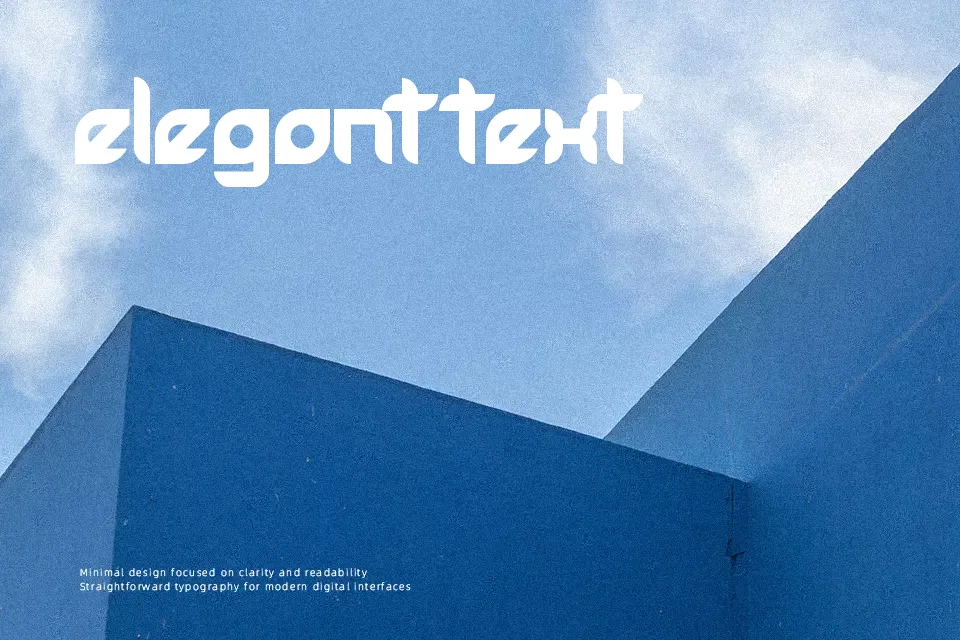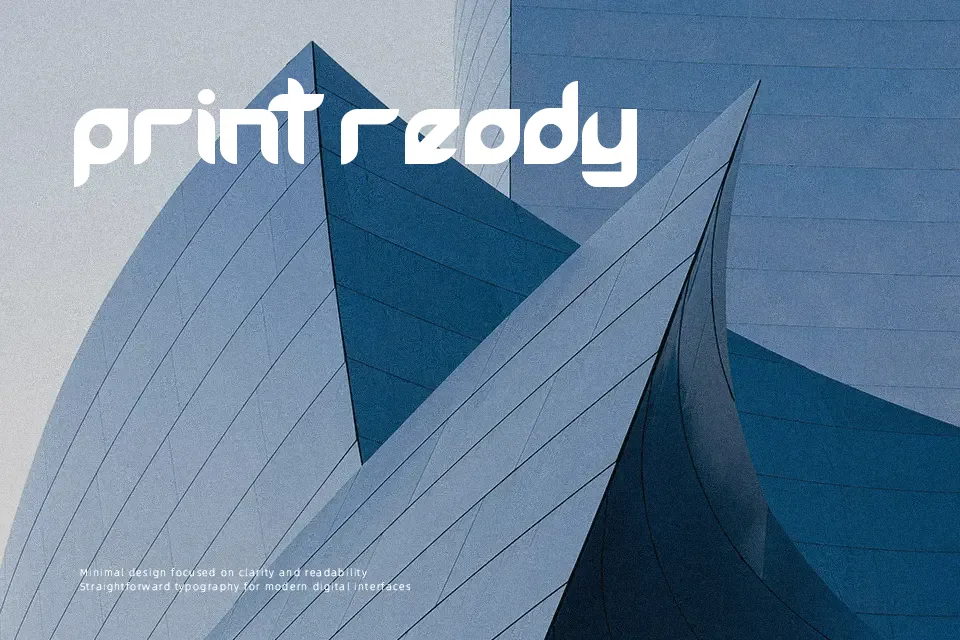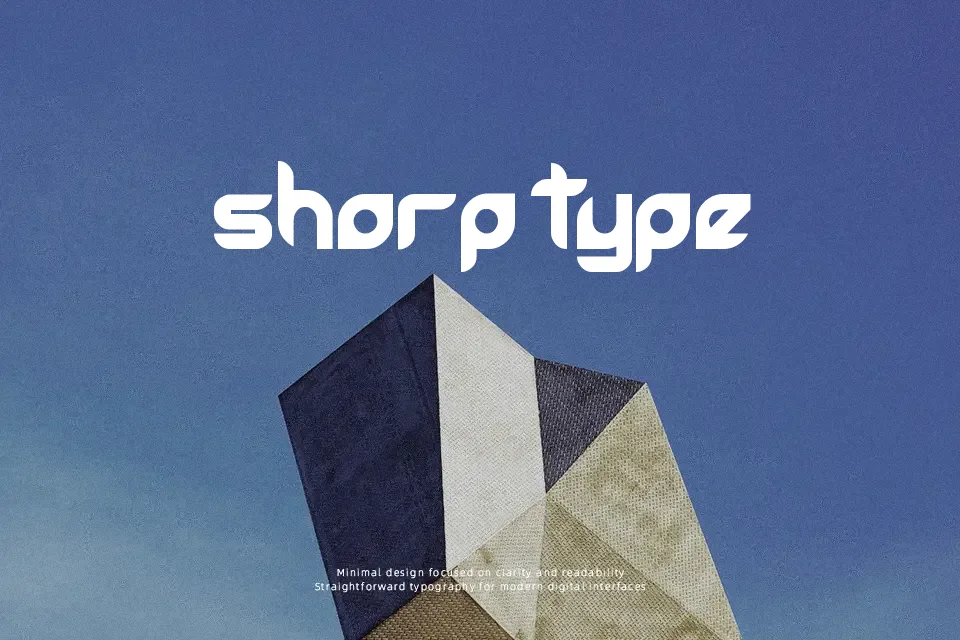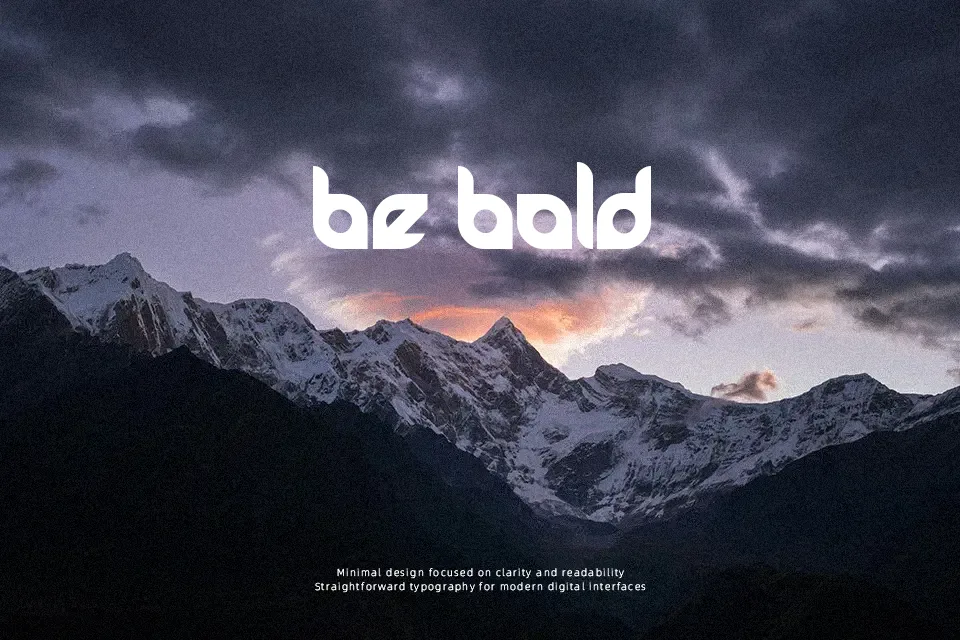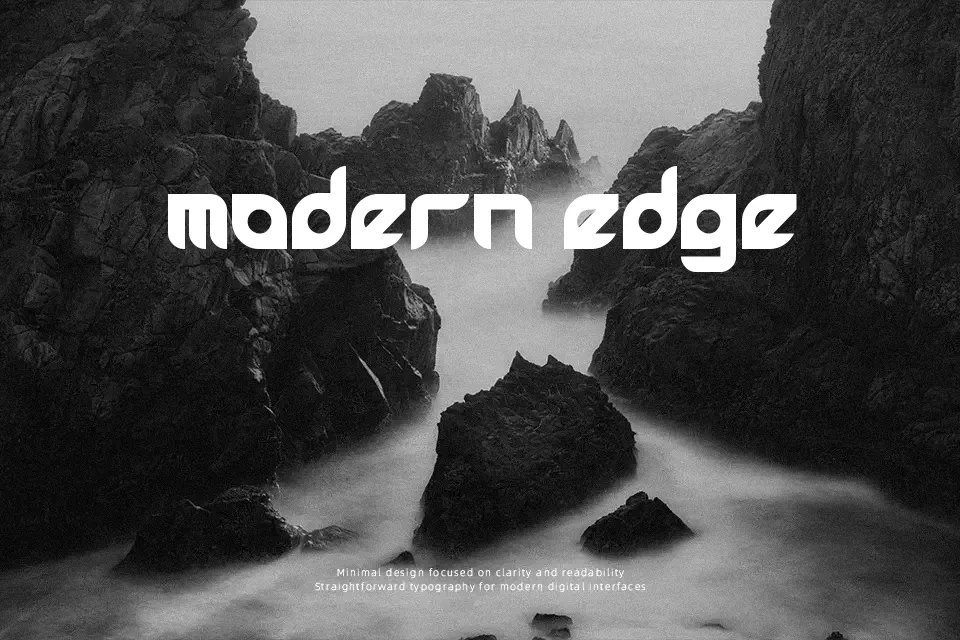
Accessories Font
Chunky, curved strokes define this font’s retro character — letterforms lean into a 1970s-influenced groove with wide, rounded bodies and a loose, celebratory rhythm. The spacing feels open and unhurried, giving headlines a laid-back confidence rather than urgency. It carries a distinctly playful mood, making it a solid pick for fashion accessory branding, lifestyle event flyers, or boutique shop signage where personality matters more than precision. That said, its decorative weight becomes a liability at small sizes — fine details blur and readability drops fast. It also lacks the structural formality needed for professional documents or brand identities that require restraint. Best deployed in large, short-burst display contexts where the retro warmth can breathe.
Best For:- Vintage fashion boutique headers
– Retro-themed event or festival posters
– Lifestyle brand social media visuals
– Beauty and accessories product packaging
Not Ideal For:- Body text or multi-line paragraphs
– Corporate or professional document design
– Small-scale print or low-resolution screens
– Minimalist or modern UI contexts
Perfect for branding, fashion, and packaging, with a groovy and decorative style.